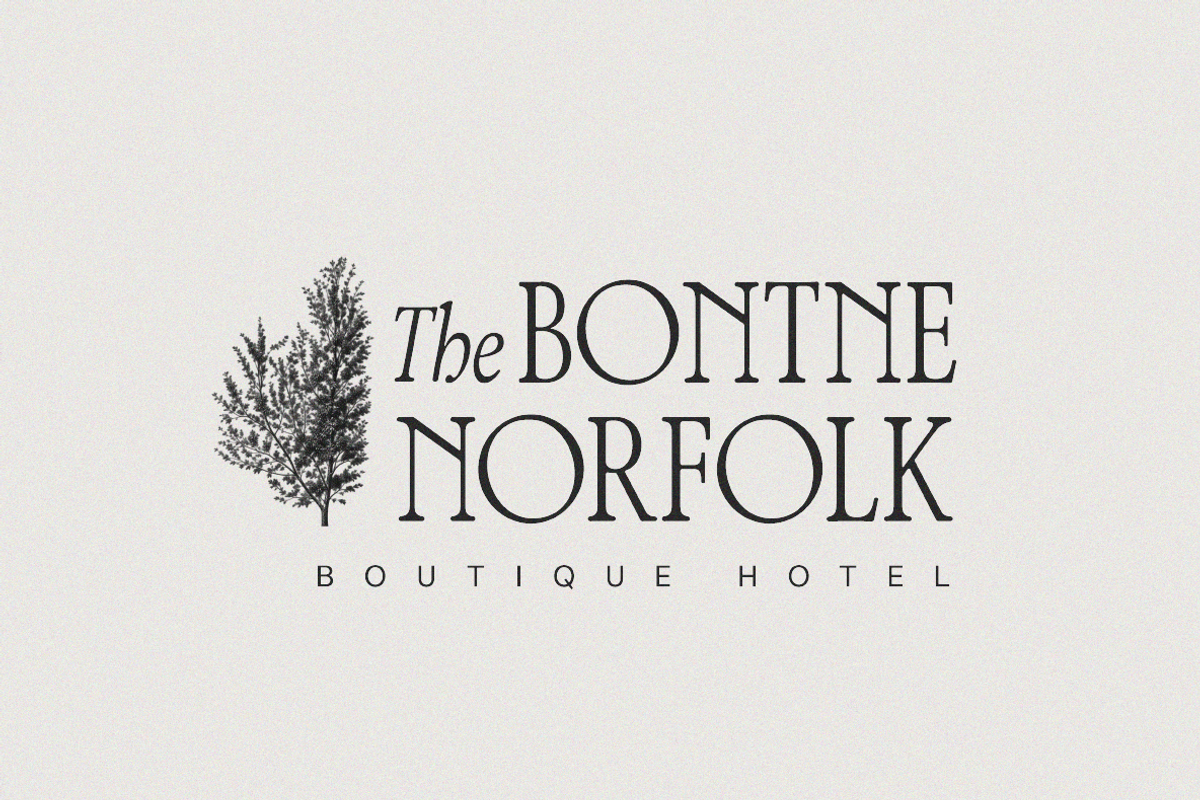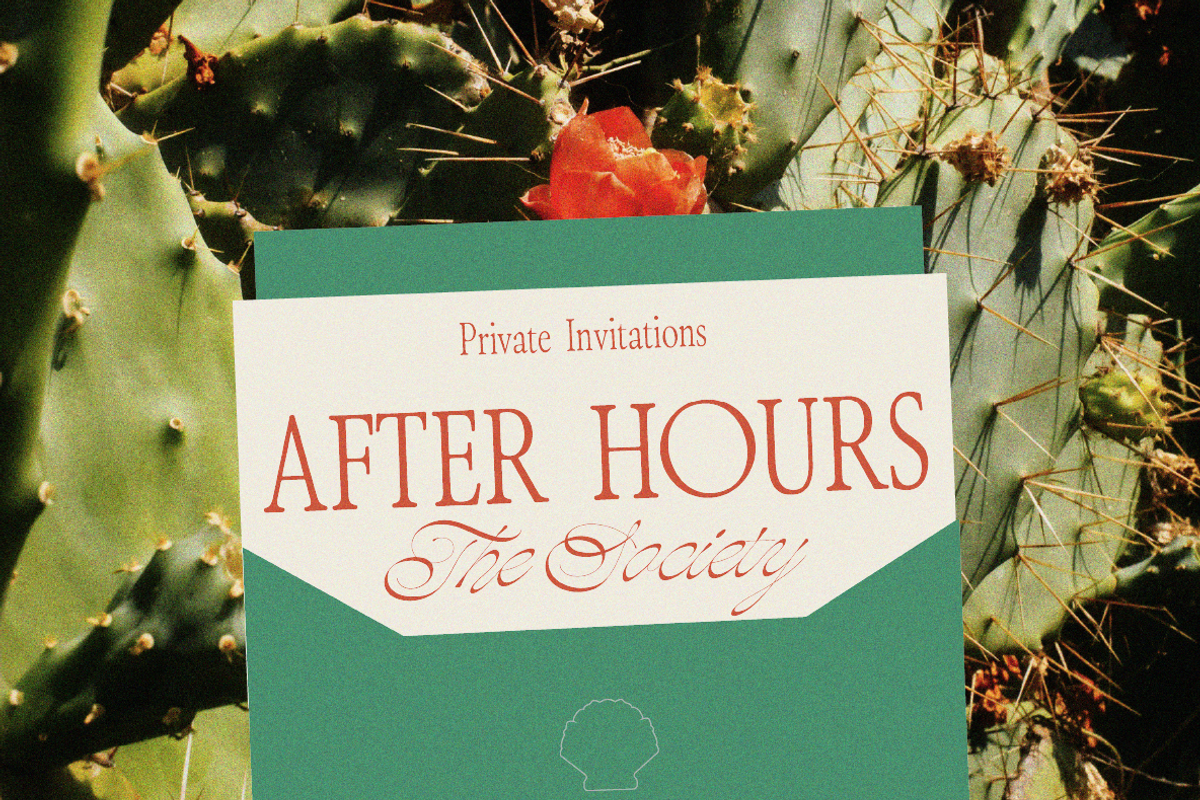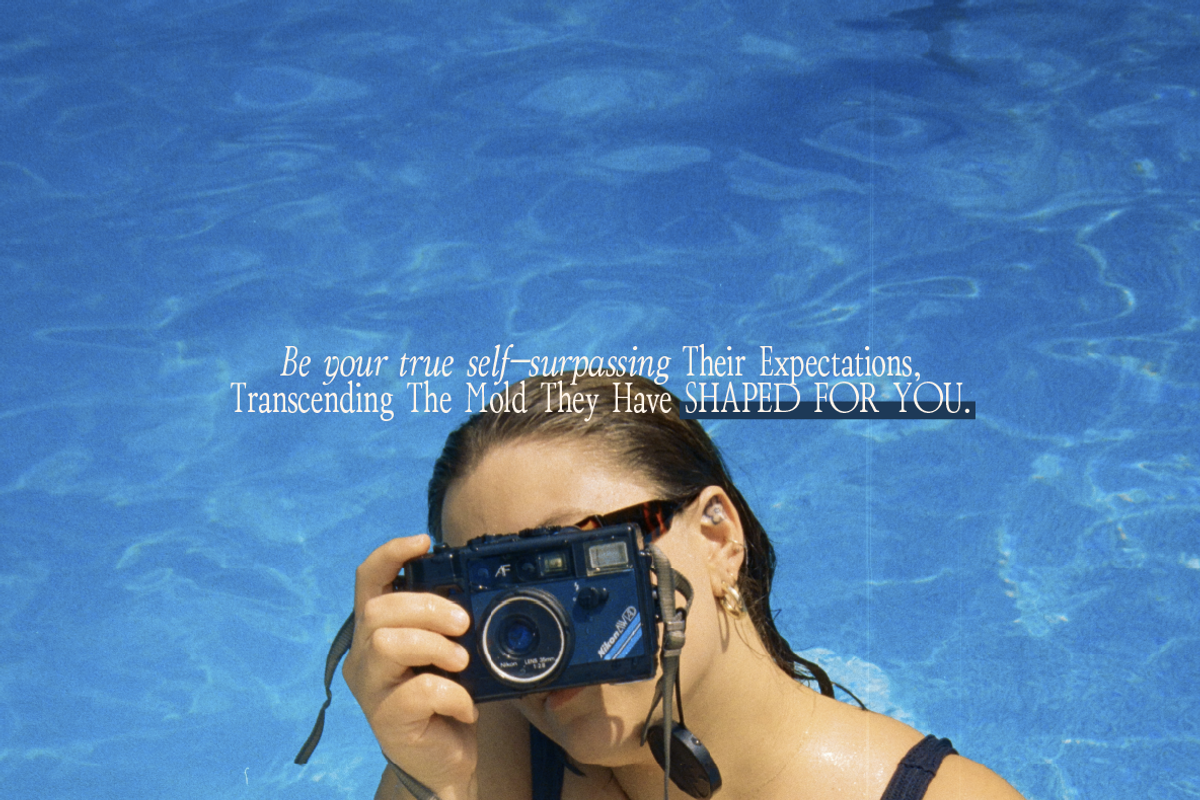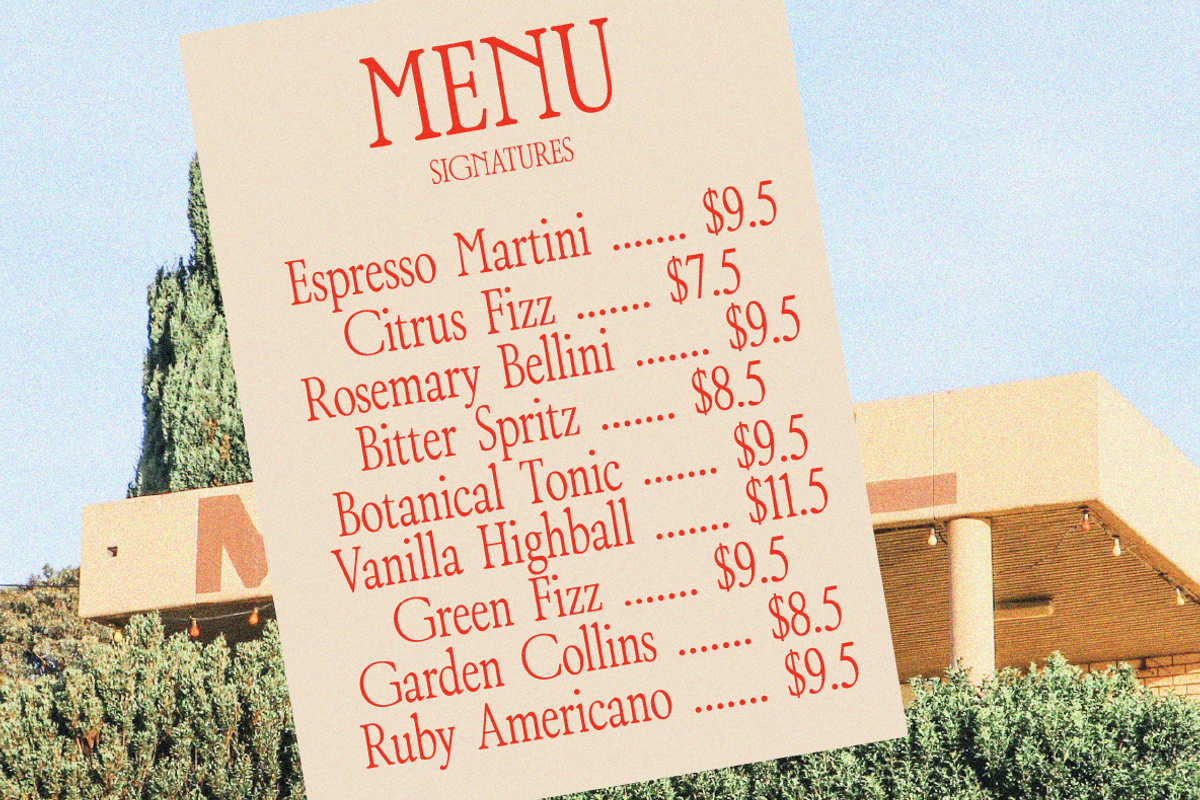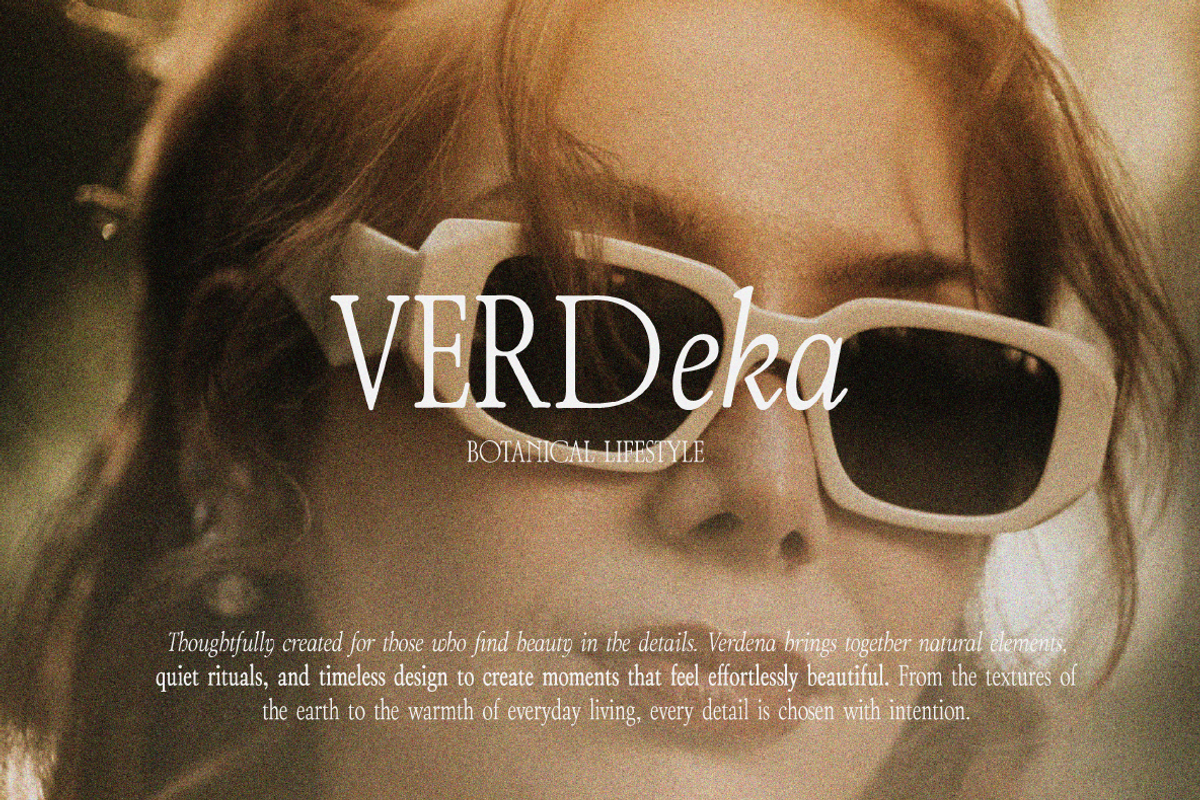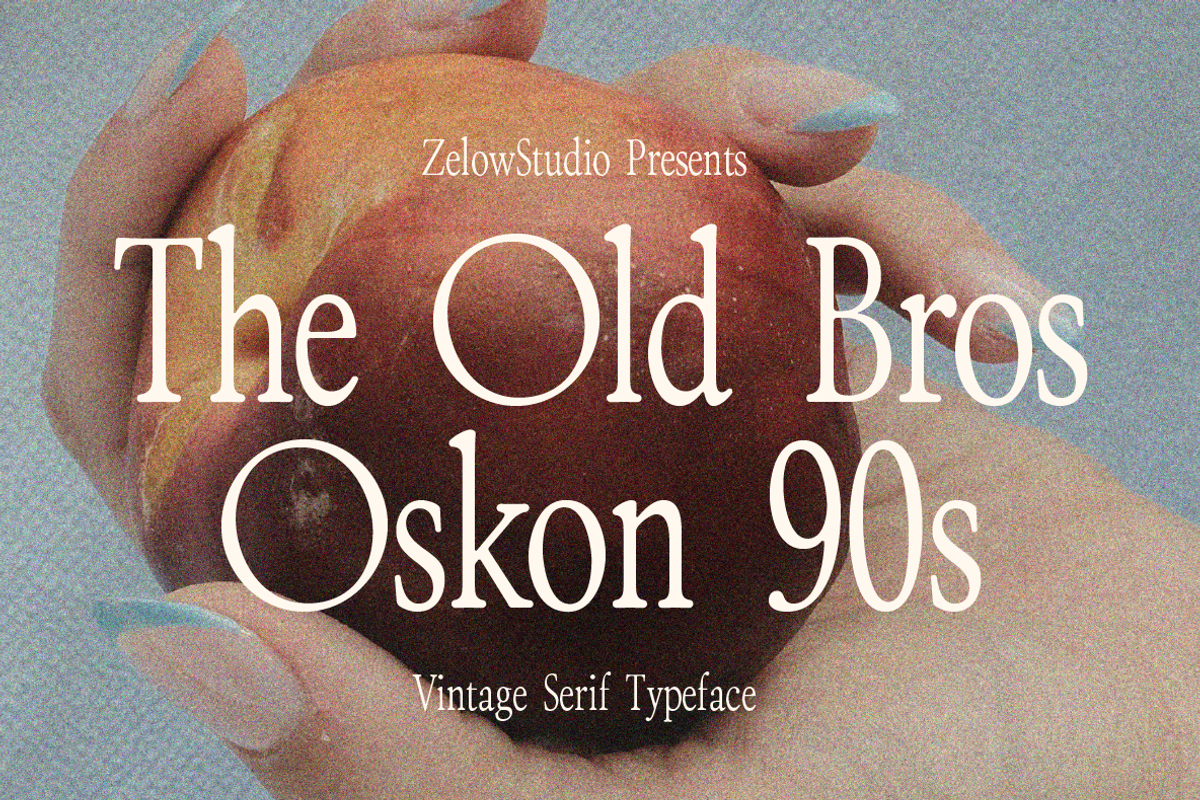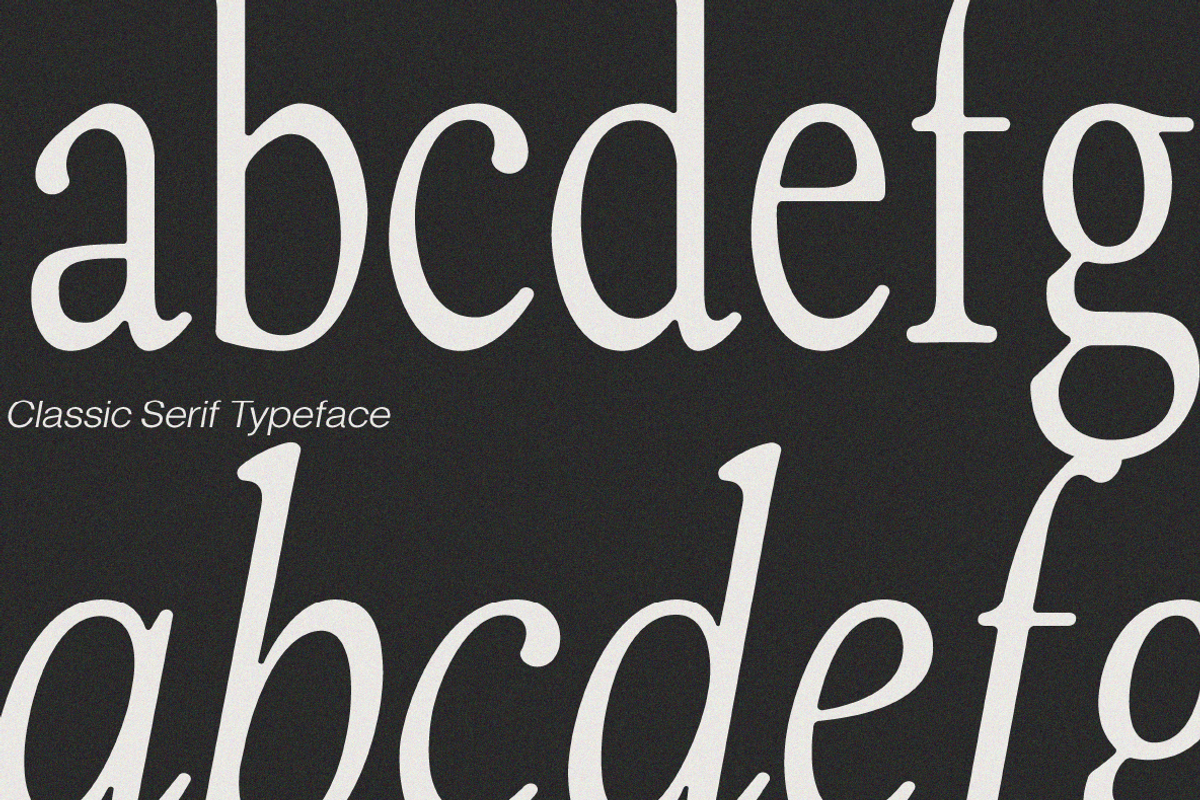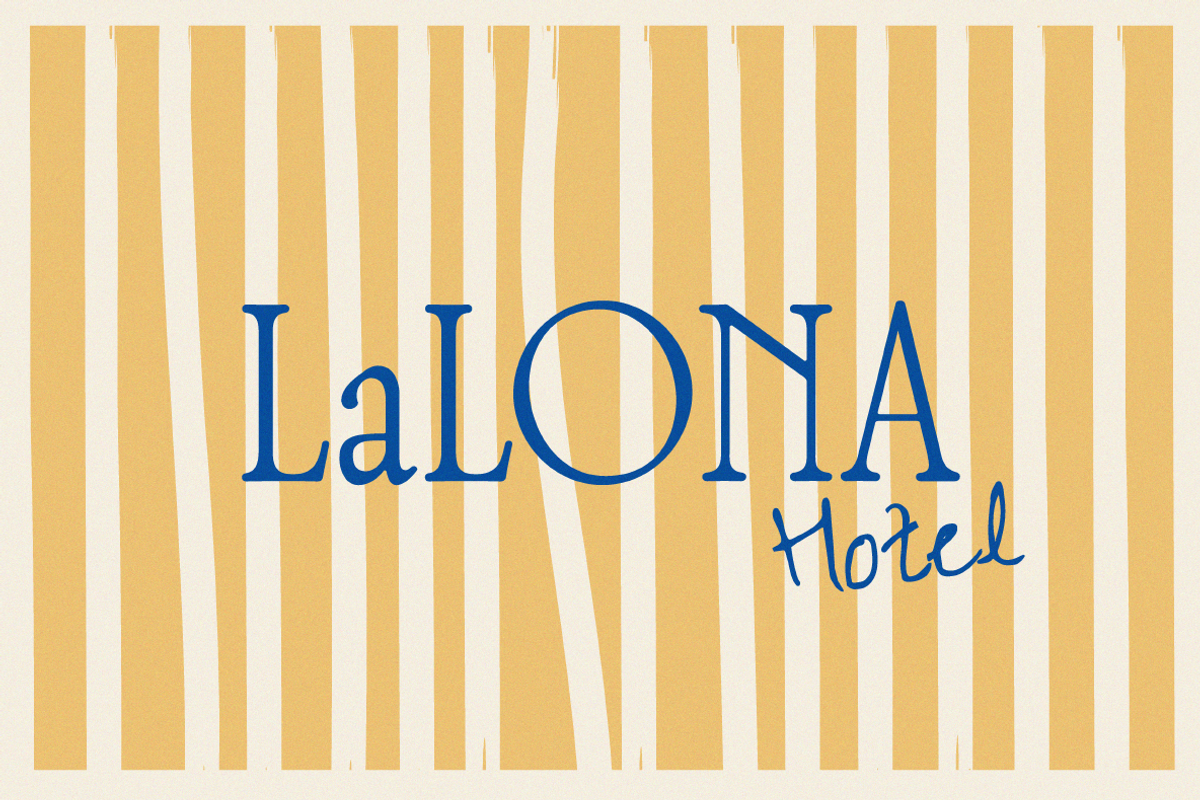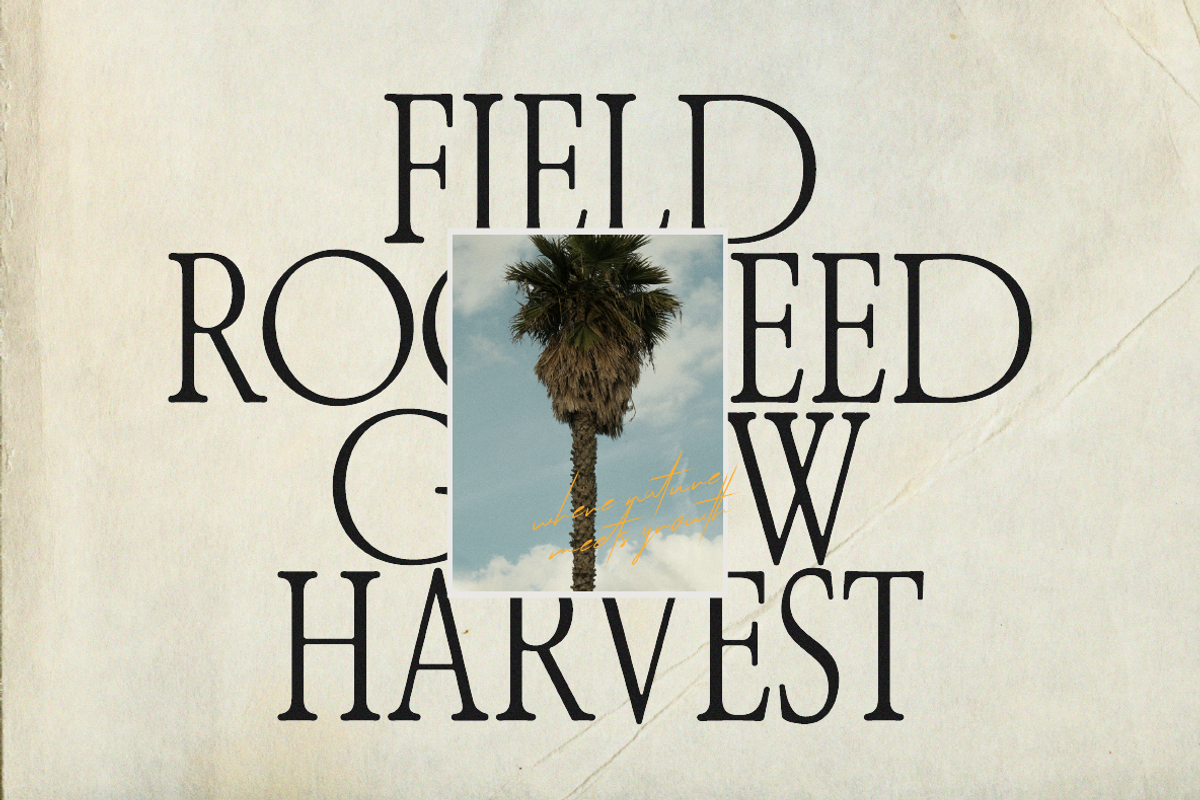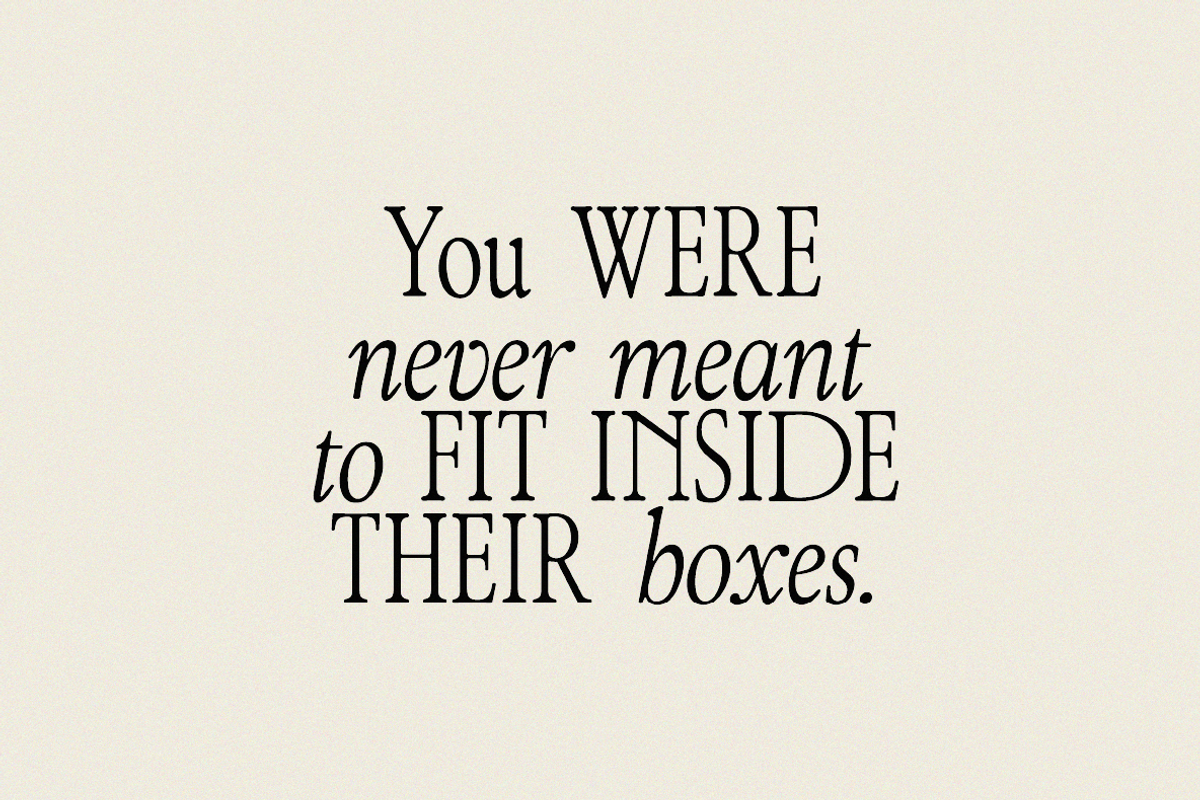
The Old Bros Oskon 90s Vintage Serif
ZT Bros Oskon 90s is a retro-inspired serif typeface that
blends 1990s nostalgia with modern typographic precision.
Sharp, elegant, and unmistakably vintage — built for
designers who want typography that makes a statement.
This edition includes 2 essential styles:
✓ Regular
✓ Italic
DESIGNED FOR
- Brand identity with a retro edge
- Poster and editorial design
- Packaging and promotional materials
- Social media graphics
- Magazine layouts and headlines
The complete ZT Bros Oskon 90s family includes 72 styles
across 6 weights — Condensed, Normal, and Expanded widths
with full italic variants.